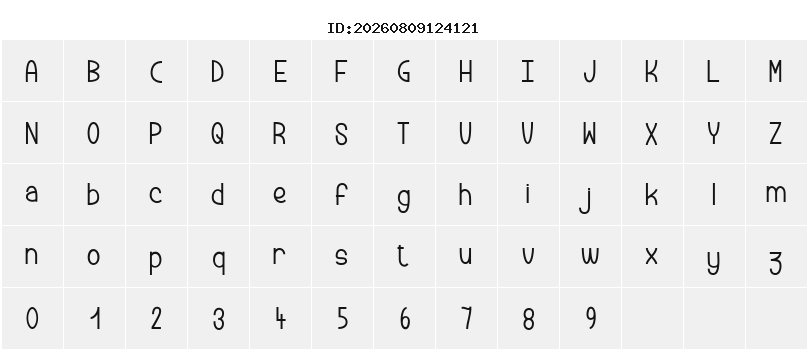
• Font Name: Peanut Butter Cookies
• Full Font Name: Peanut Butter Cookies
• Designer: dcoxy Medina Gregory
About Peanut Butter Cookies.ttf
Peanut Butter Cookies.ttf is a modern, elegant sans-serif font designed for ultimate readability and visual harmony. Perfect for branding, headlines, web design, and print materials.